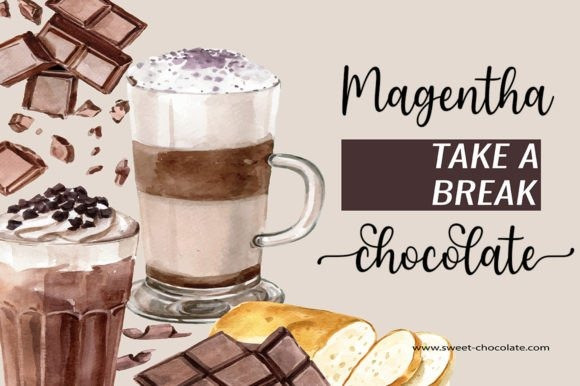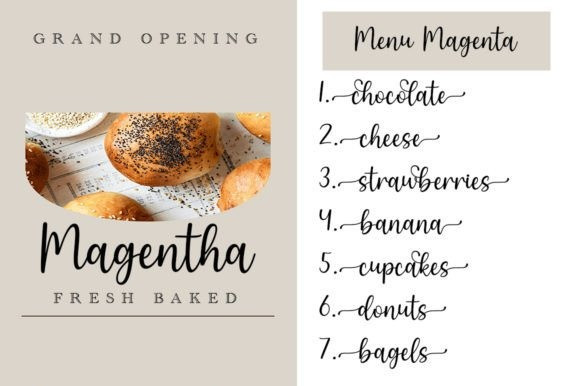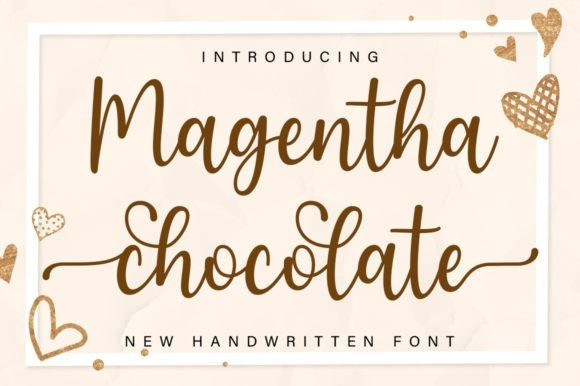
Magentha Chocolate Font
Magentha Chocolate Script Font is a calligraphic script font that comes with beautiful alternate characters. Copperplate calligraphy mixed with hand lettering style, designed to convey stylish elegance. Magentha Chocolate is attractive because it is subtle, clean, feminine, sensual, glamorous, simple, and very easy to read.
The classic style is very suitable to be applied in all types of formal work such as invitations, labels, menus, logos, fashion, make-up, stationery, letterpress, romantic novels, magazines, books, greeting/wedding cards, packaging, and labels.